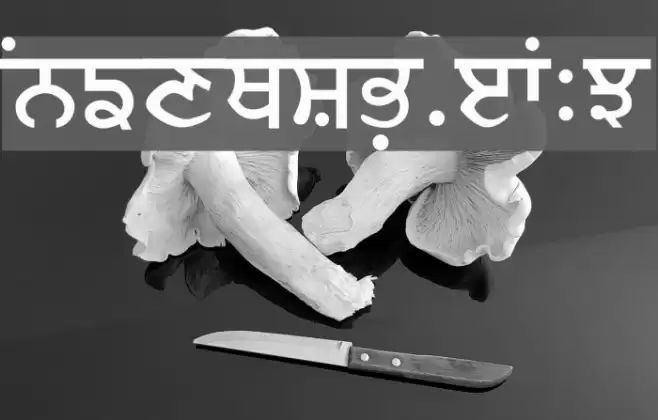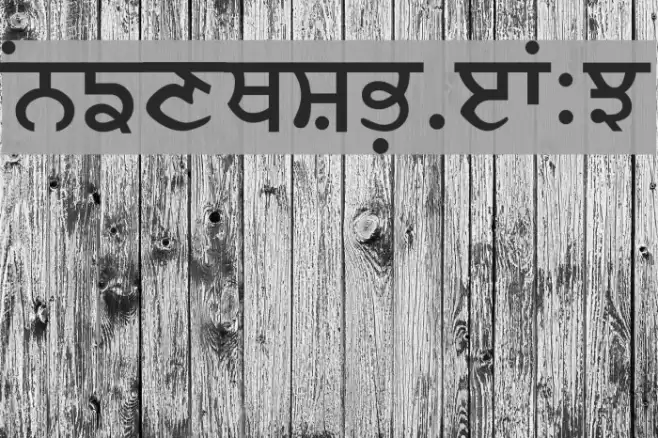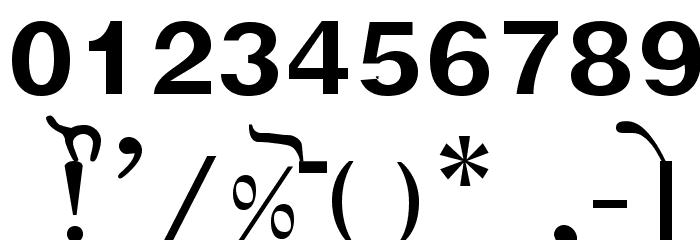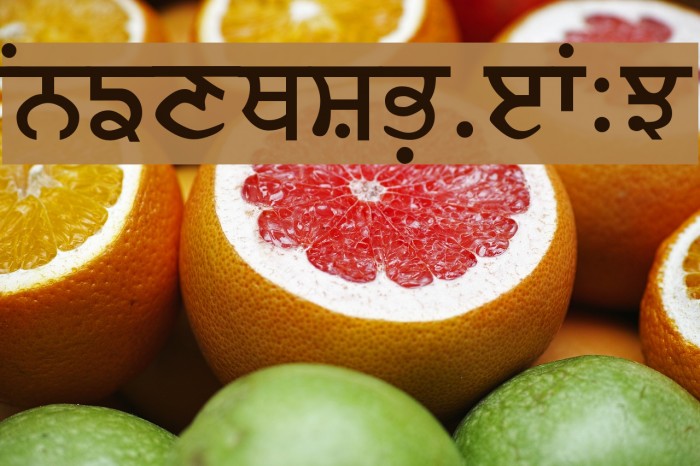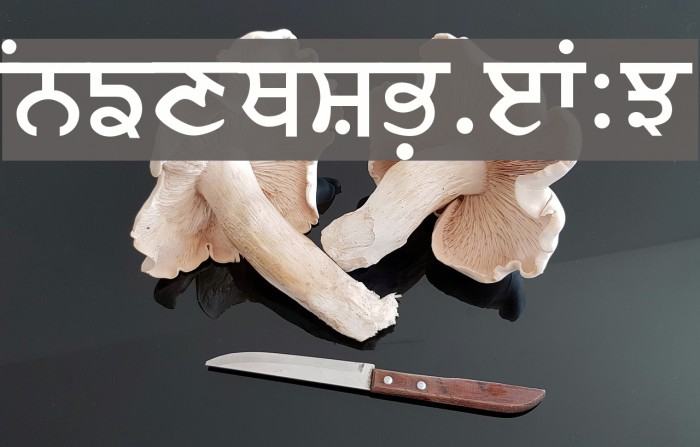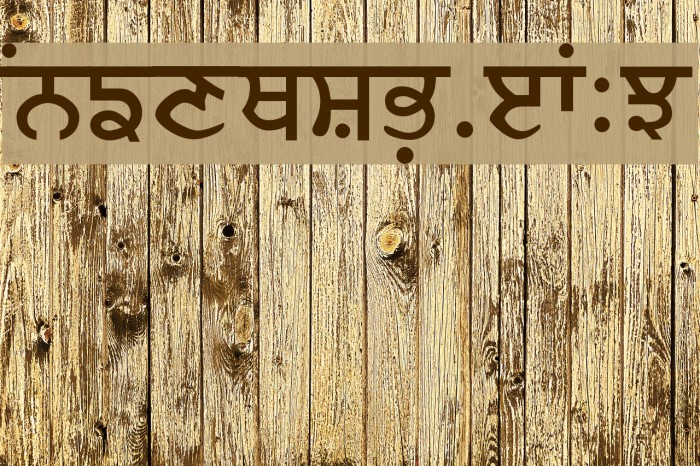
Merapunjab Font
Merapunjab Description
This font features a bold and modern design with clear, distinct characters. The script is based on the Gurmukhi script, commonly used for writing the Punjabi language. The characters are well-defined with a consistent stroke width, providing a clean and legible appearance. The numerals and special characters are integrated seamlessly, maintaining the overall aesthetic. The font's structure is balanced, making it suitable for both digital and print media. Its boldness ensures visibility and readability, making it ideal for headlines and titles.
A bold, modern Gurmukhi script font with clear, legible characters from Asian fonts.
- Proposed Projects: Ideal for Punjabi language publications, educational materials, and digital content requiring Gurmukhi script.
- Use Case: Headlines, Titles, Digital content